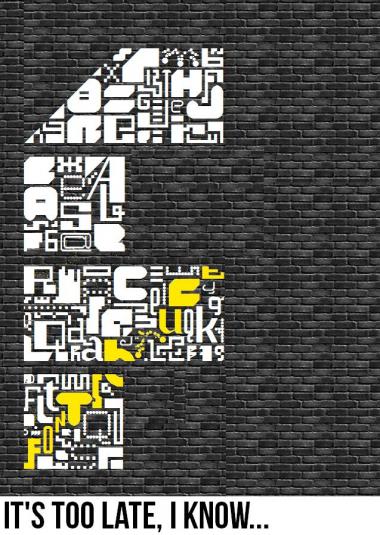
Rules & Guidelines:
1) All FontStruct users may participate in FontOut, and can do so with as many entries as they like.
2) An entry in a FontOut is a picture or image on a specific FontStruct forum. It can also be a public font. There are no limits on licence.
3) The font must be tagged with "FontOut#" where '#' stands in for the specific number of the FontOut.
4) Every two weeks, a FontOut will be announced and participants can publish fonts or images within that two-week time period.
This FontOut:
(24th June 2012)
Create a new logo for FontStruct! Post a sample image showing the logo in the comments. The logotype must be done in FS, but it doesn't have to be a compete font. (Note: this is an unofficial contest, and the actual FS logo will not be changed.)
The last time you can upload a sample is 1st July 2012. Voting starts on that date.
Let's see what our FontStruct community can do!
I have a better one now:
@Abneurone Fluid Types: your first samples' rythm and composition is really great and my fav at moment! but (no offense) the colors are hurting my eyes and to be constructive: they divert from the well-shaped and balanced ensemble.
@regular_one : Thanks! But personnally i much prefer the second one. Here's a more normal sample just for you.
thanks… now its perfect IMHO.
it kinda reminds me of deltas work:
Aww I was still making a font for Fontout 2.. oh well.
Ugly, I know.
By the way Yautja's entry is brilliant.
This' better.
Or this one?
And other point of view...
This is for AFT, for your great dedication to the FS world, compañero.
My votes
1st place: Yautja 1st sample (curvy)
2nd place: Yautja 3rd sample (tech-ey)
3rd place: architaraz 1st sample (tight counters)
Voting starts now!
Get your votes in for FontOut3. Voting ends 8 June 2012. May the best sample win!
I'm sorry. 3rd place should be architaraz' 3rd sample. Ingenious.
1st: Architaraz's 1st sample
2nd: Yautja's 3rd sample
3rd: Architaraz's 2nd sample
1st: Yautja's 1st sample
2nd: AFT's 6th sample & truth14ful's 2nd sample.
3rd: LingoLinda & Elmoyenique's last sample.
1st. Yautja (1st Sample)
2nd. Elmoyenique (4th Sample Italics)
3rd. Architaraz (1st Sample)
1st. Yautja (1st Sample)
2nd elmoyenique Thu, 28th June, 6:47 PM
3rd. rchitaraz Sat, 30th June, 3:25 PM
@cablecomputer: great work!